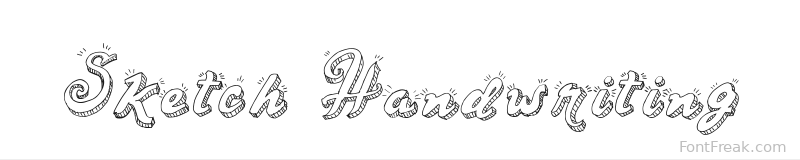
Sketch Handwriting
The Sketch Handwriting font by Galdino Otten Fonts is a charming handwritten typeface that embodies a playful and artistic style. As a decorative font, it captures the essence of casual writing with a unique flair. Its visual characteristics include a medium stroke weight and a whimsical touch that suggests it has been crafted with care, making it ideal for conveying a personal connection. The letters feature slight variations in thickness, enhancing the organic feel, while the spacing is thoughtfully balanced, allowing for easy readability.
This font is particularly well-suited for a variety of creative applications. It shines in contexts such as wedding invitations, where its informal elegance can set a warm, inviting tone. Additionally, it works wonderfully for children's book covers, adding a playful element that appeals to young readers. Restaurant menus can also benefit from this font, as it imparts a friendly and approachable vibe, making the dining experience feel more inviting. In the realm of graphic design, this font is perfect for crafting promotional materials that aim to connect with the audience on a more personal level.
The target audience for Sketch Handwriting includes graphic designers looking to add a touch of creativity to their projects, small business owners who want to establish a friendly brand image, and content creators seeking unique typography to enhance their visual storytelling.
What sets the Sketch Handwriting font apart is its ability to blend artistic expression with practicality. With its freeware license, users can enjoy this delightful font without any restrictions, making it an excellent choice for various design projects. Don’t miss out on the opportunity to elevate your designs; consider the Sketch Handwriting font free download for your next creative endeavor.